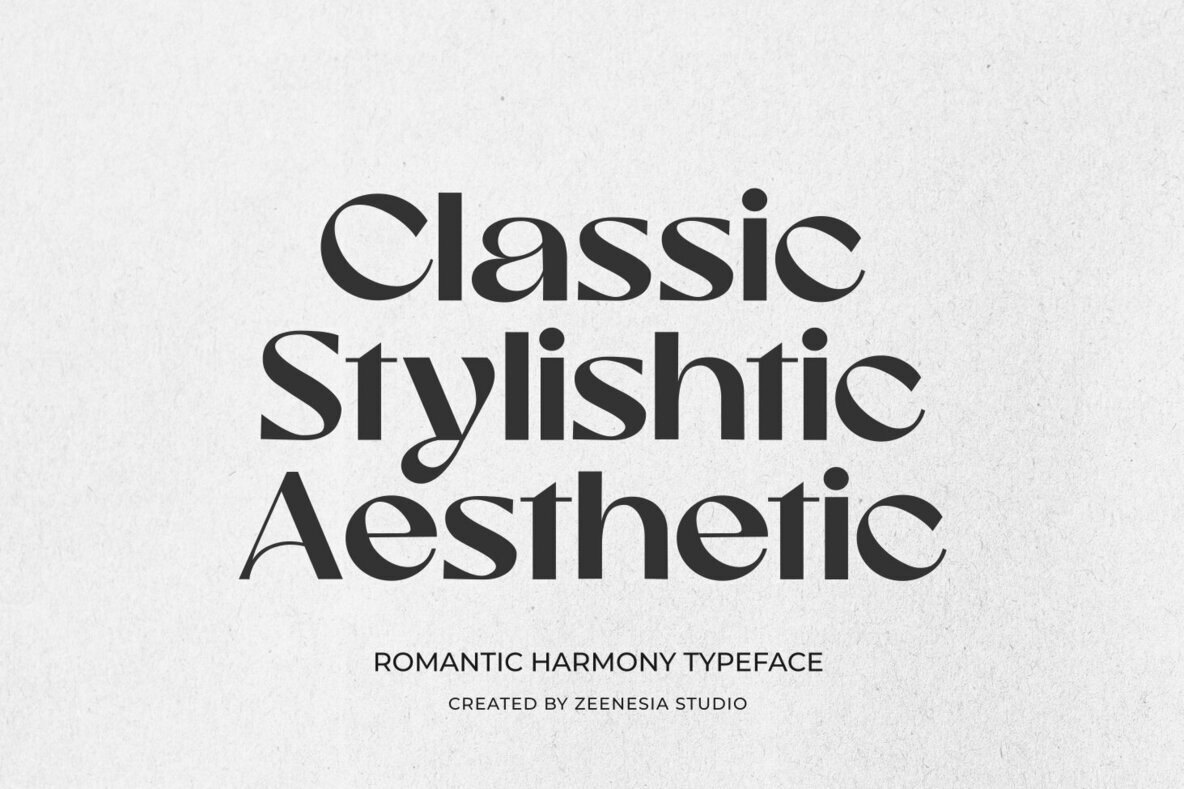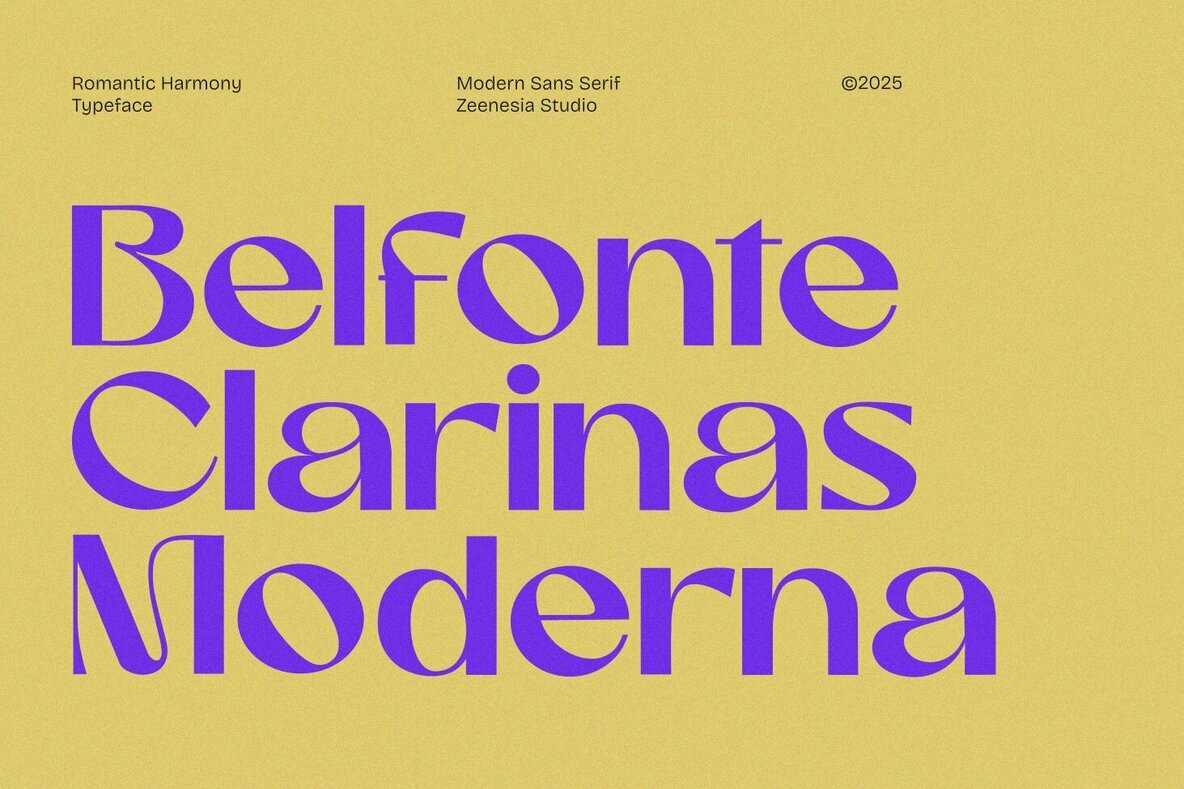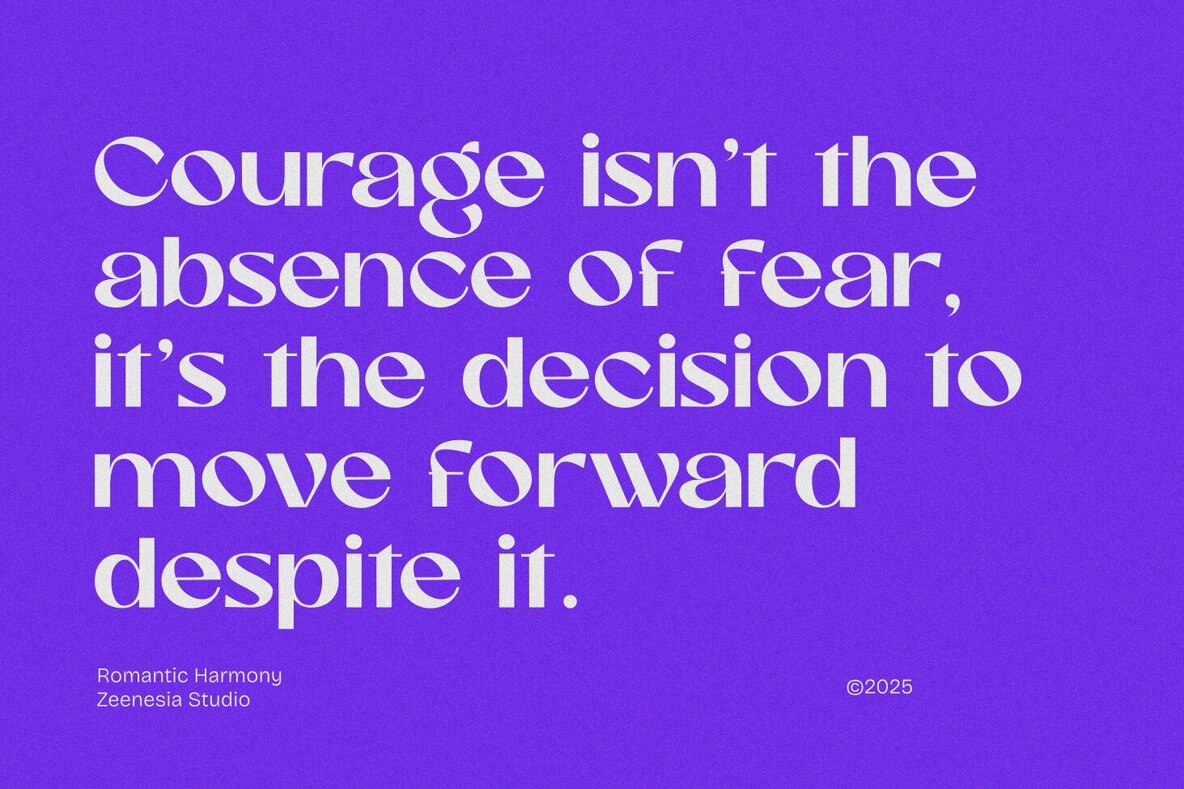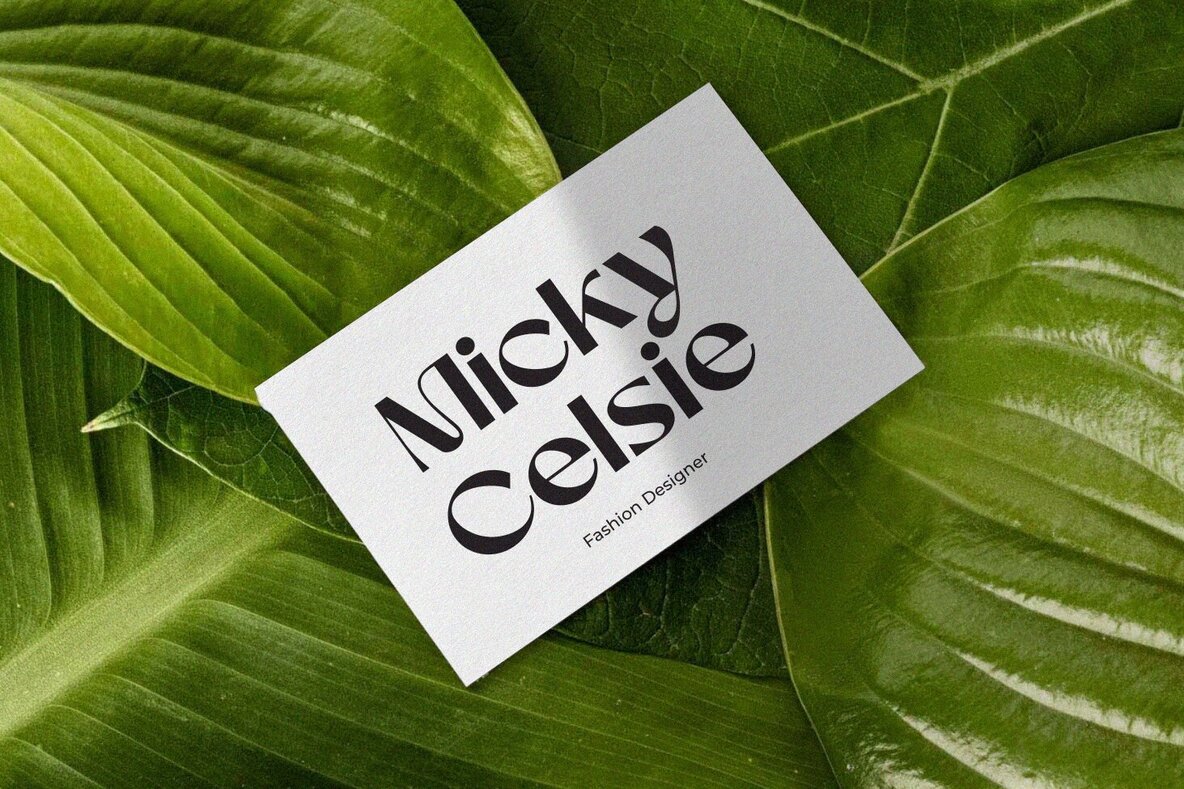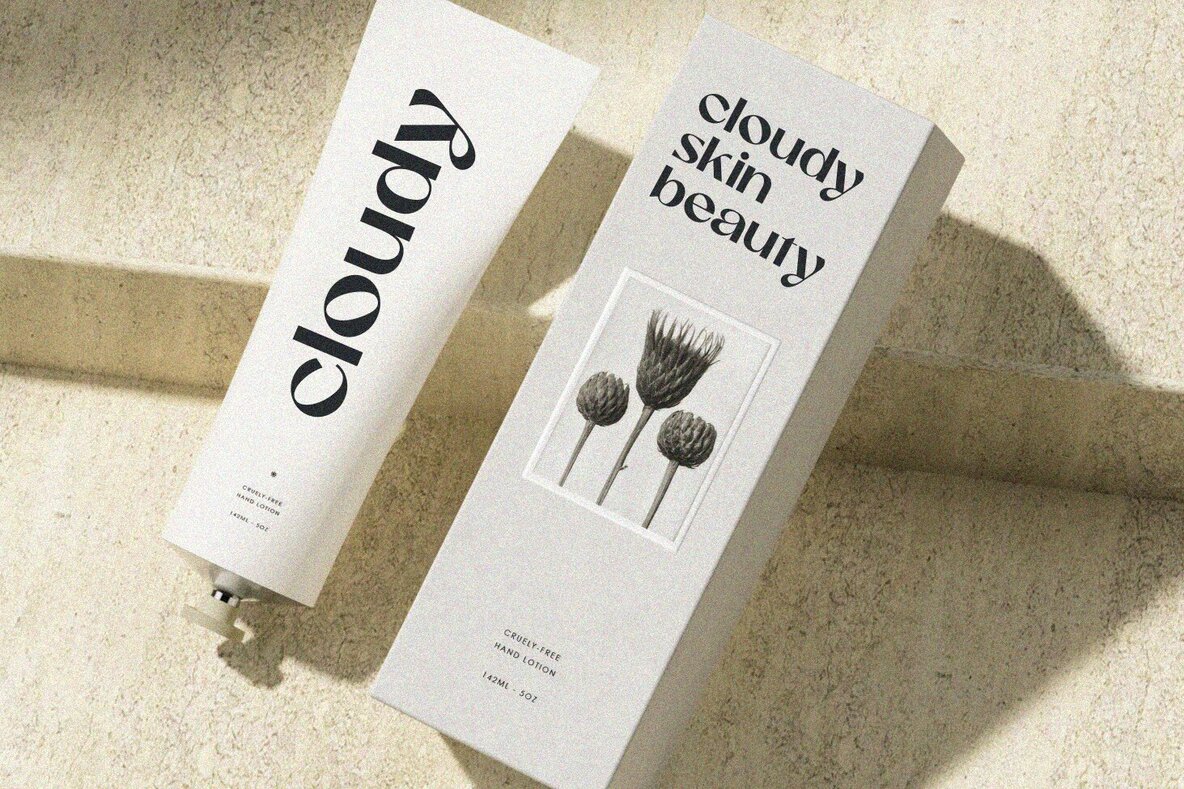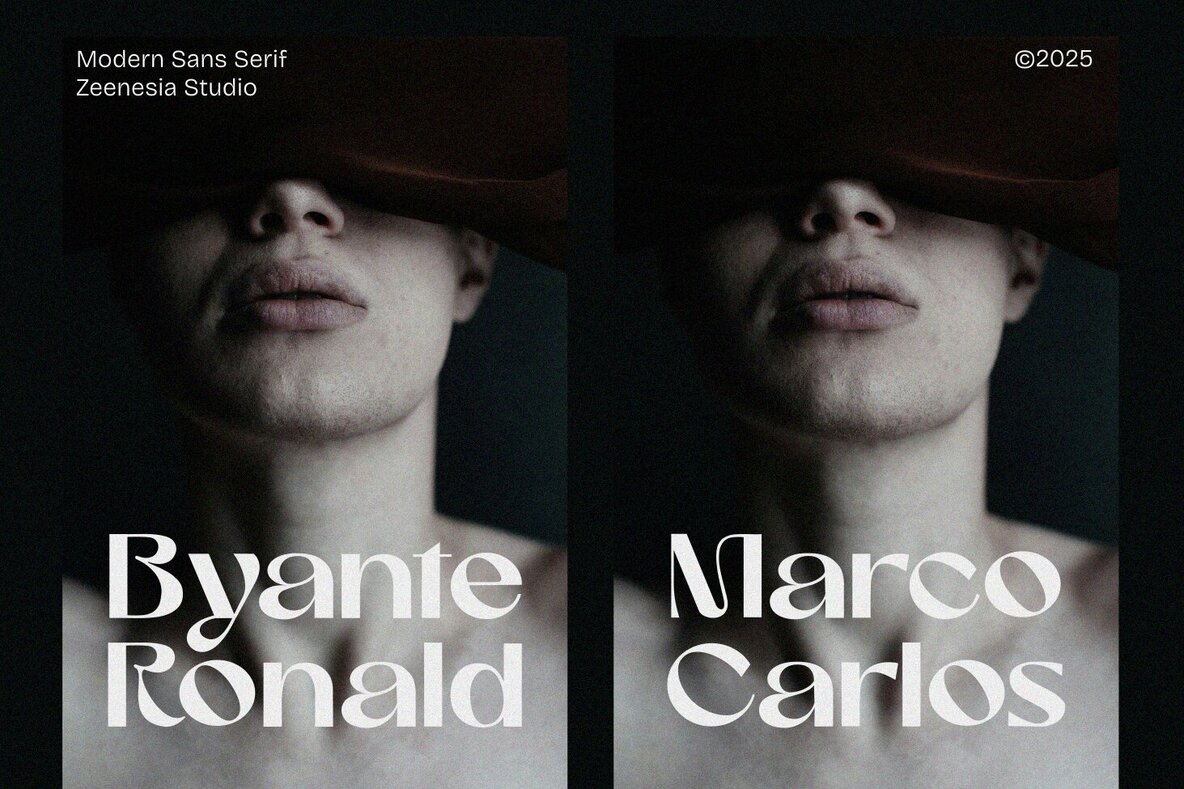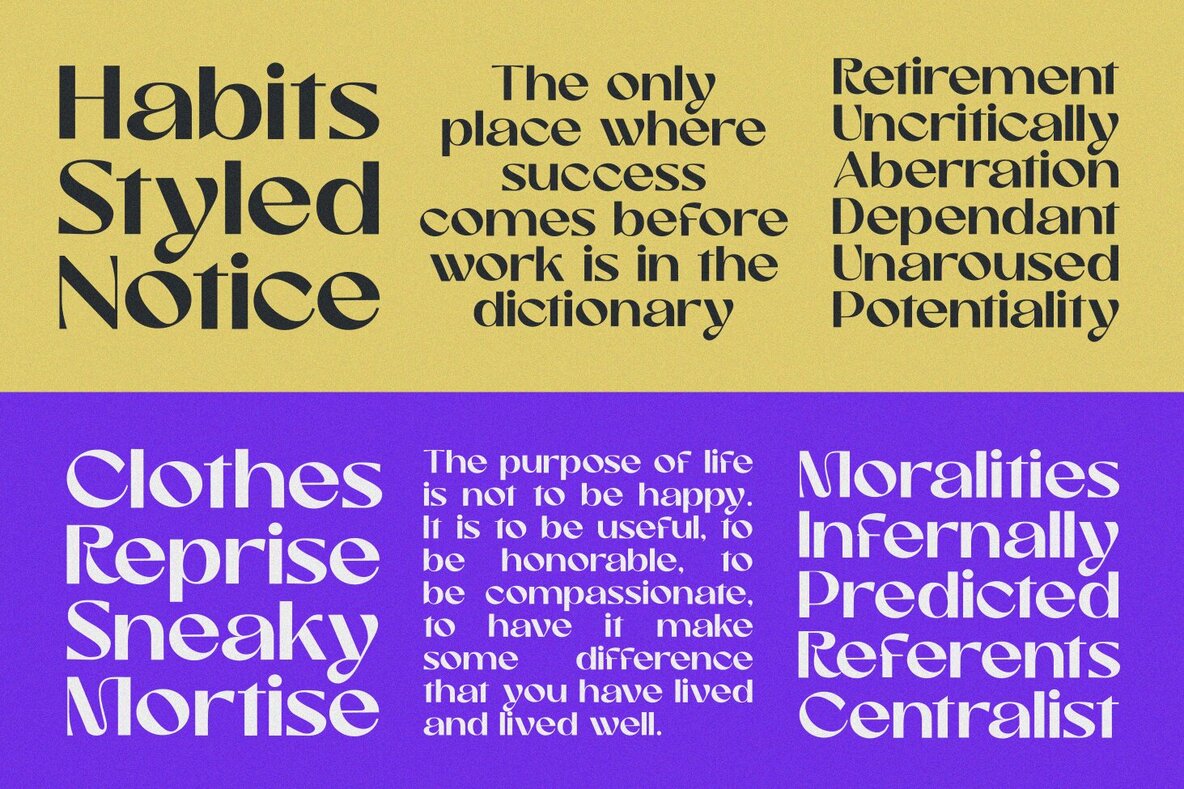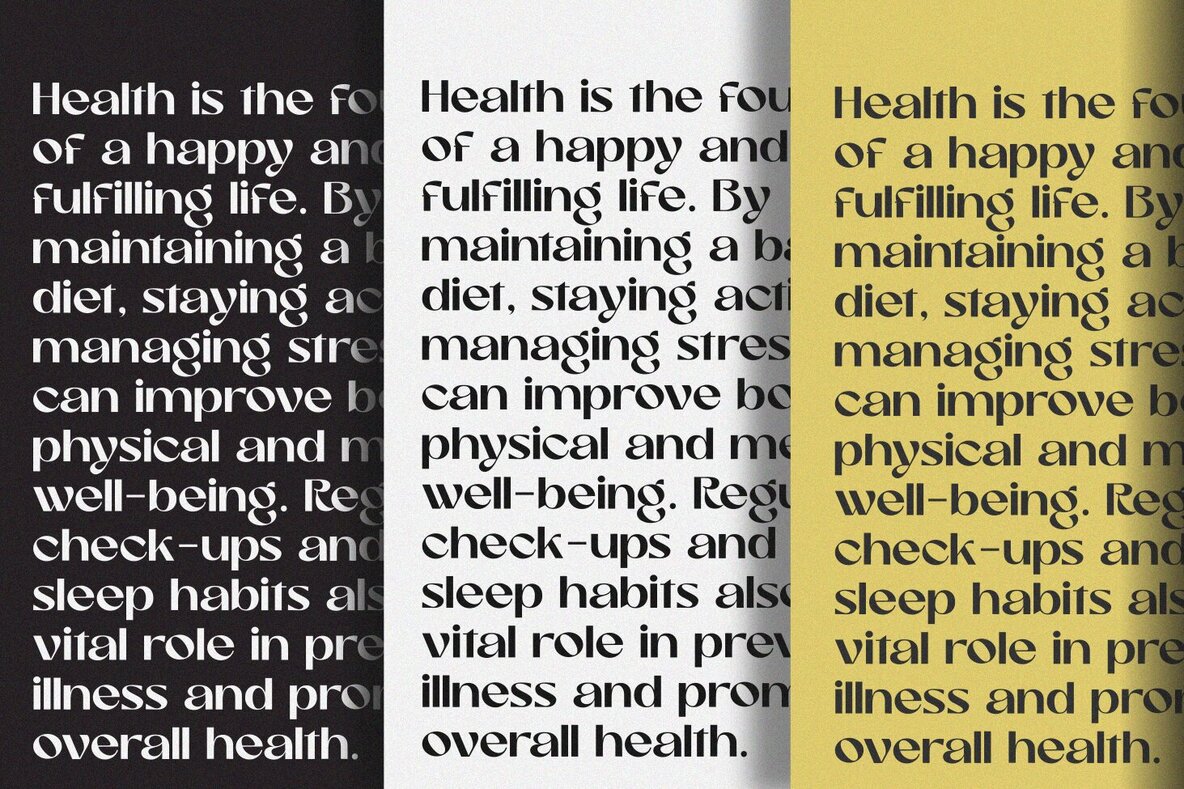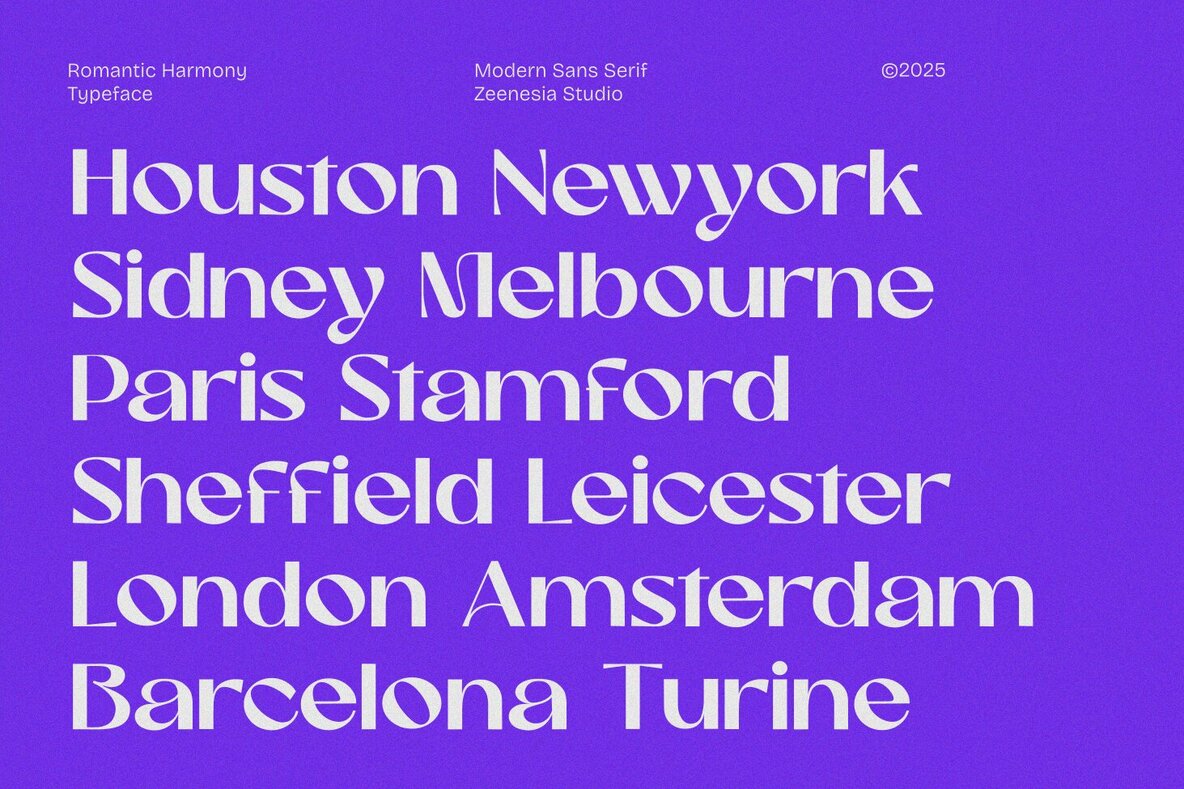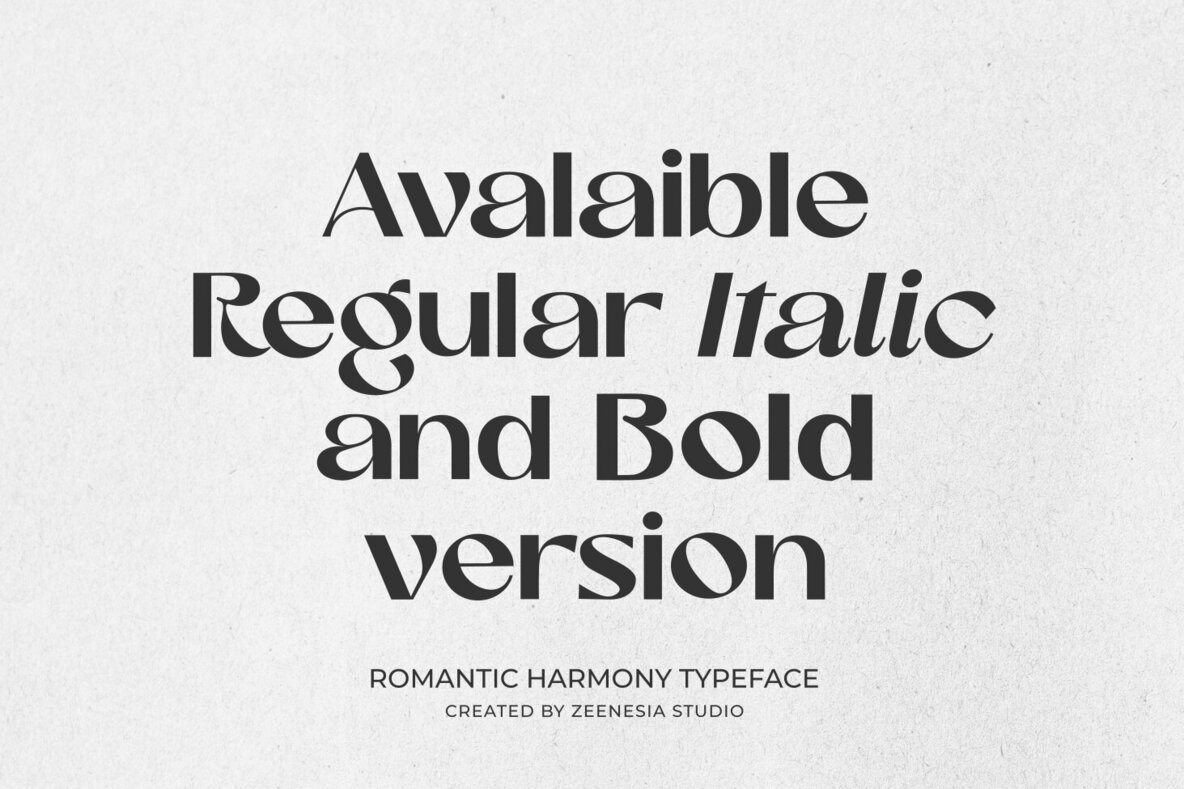
Romantic Harmony Font
Romantic Harmony is a striking sans-serif font designed for a lasting impression. With its strong character and distinctive personality, it blends modern aesthetics with timeless appeal. This font features three versatile styles: Regular, Italic, and Bold. Romantic Harmony adapts effortlessly to various design needs, from branding and editorial layouts to packaging and digital interfaces. It delivers both power and grace, whether you're aiming for sophistication or contemporary minimalism. Romantic Harmony offers a perfect balance where strength meets elegance, poised to enhance your design projects.Romantic Harmony: An Elegant Sans-Serif
Styles and Versatility
Design Characteristics